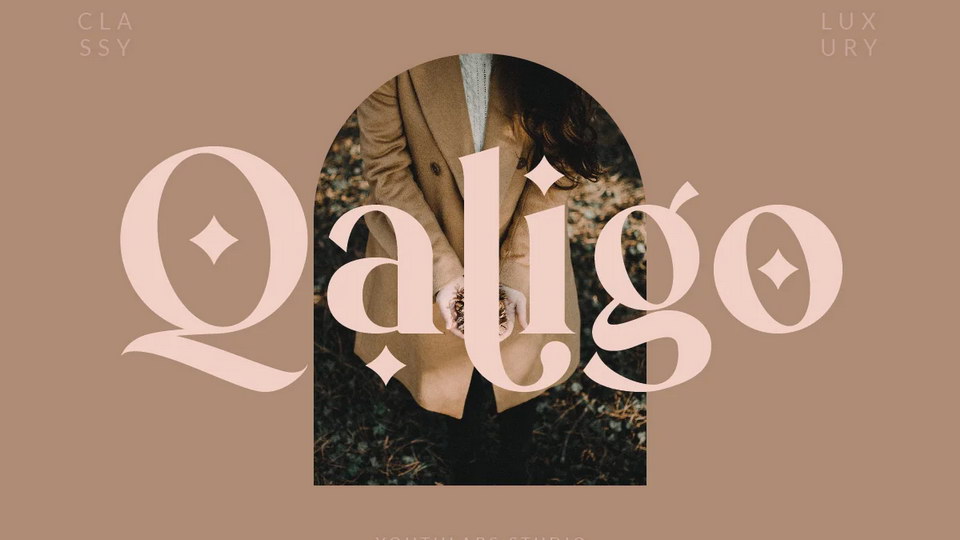
Feb 8, 2025SerifQaligo Font Qaligo is a bold and elegant serif font inspired by modern and luxury typography. Qaligo is a very versatile font, as it has the potential to elevate any creation. Font DetailsDesigned by: Youthlabs StudioWebsiteLicense: Free for personal use Download Qaligo FontFile size: 7.57 KBCreated: February 16, 2025Updated: February 16, 2025 Download Explore similar fonts Connect Markets Font Flowserif Font Royal Enigma Font Cariles Font Rossela Font Qerdith Font # Decorative# Fancy# Fashion# Vintage More fonts by Youthlabs StudioKagero FontHustle Hardcore FontMidable FontHalmahera Island FontLucky Change FontBig Zubo FontAstrion Reverse FontSaltero Font